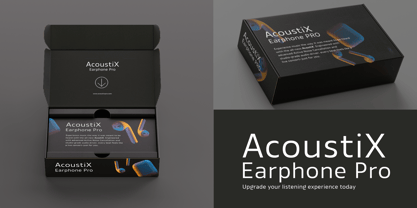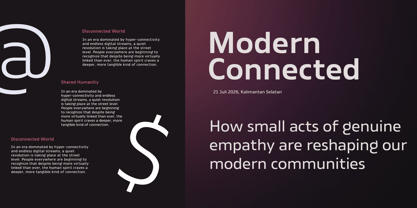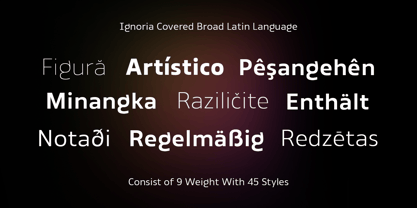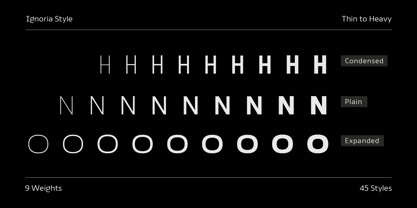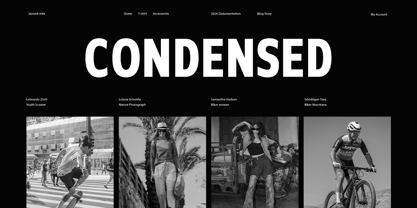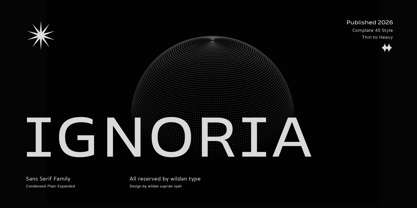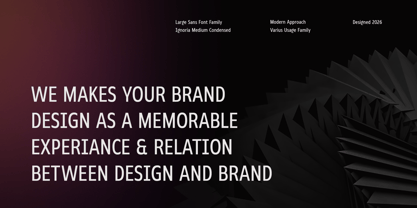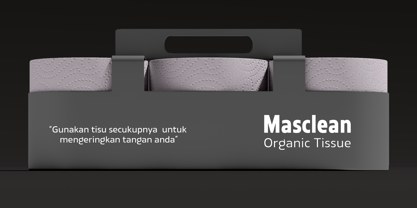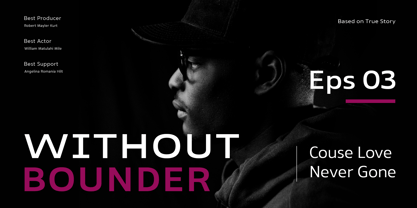
Ignoria
by Wildan Type
The Ignoria Font Family was designed by Wildan Suprian Syah and published by Wildan Type. Ignoria contains 7 styles. More about this family
Ignoria – Modern & Versatile Sans Serif Family Ignoria is a highly versatile modern sans serif font family designed to meet the diverse demands of contemporary typography. Built with precision and clarity, Ignoria offers an extensive range of styles, making it an all-in-one typographic solution for branding, editorial layouts, web design, and large-scale display applications. With a total of 45 styles, Ignoria features 9 weights ranging from Thin to Heavy, across 3 distinct widths: Condensed, Plain (Normal), and Expanded. Whether you need a space-saving condensed style for tight headlines, a balanced plain width for body copy, or an impactful expanded font for poster designs, Ignoria delivers seamless legibility and sleek aesthetic appeal.
Designers: Wildan Suprian Syah
Foundry: Wildan Type